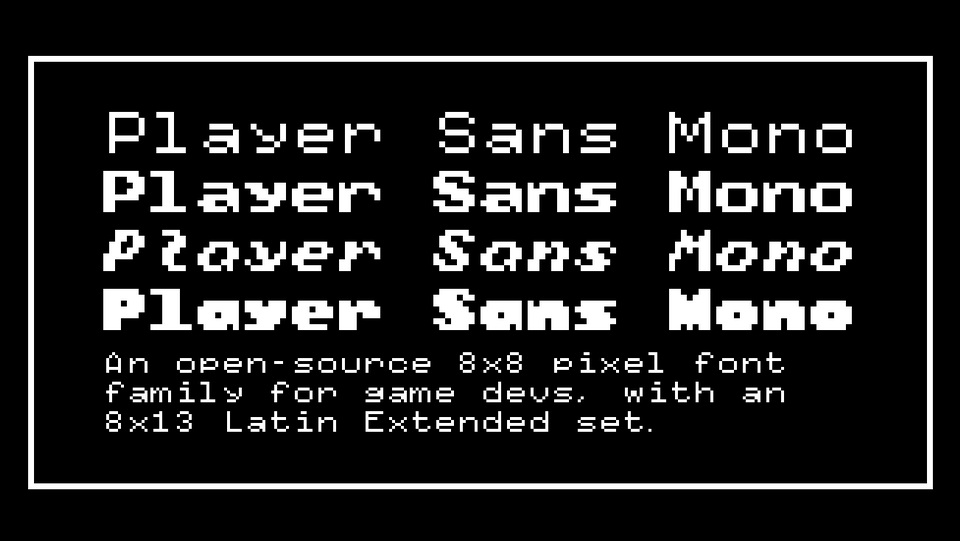
Feb 7, 2025DisplayPlayer Sans Mono Typeface Player Sans Mono is a pixel font family designed for video game developers. It features:Monospaced 8×8 (Latin English) and 8×13 (Latin Extended) character sets;Light, Classic, Italic and Bold styles. Font DetailsDesigned by: Justin PennerWebsiteLicense: Free for commercial use, OFL Download Player Sans Mono TypefaceFile size: 125.74 KBCreated: February 16, 2025Updated: February 16, 2025 Download Explore similar fonts KAI.01 Font Family Boba Mono Font Schroffer Mono Font Departure Mono Font Astron Font Family Utskho Font # Family# Pixel# Technology More fonts by Justin PennerGrammastile FontFloomper FontFormation FontGeloma FontChonk FontWarp Speed FontVoleur FontMono Font